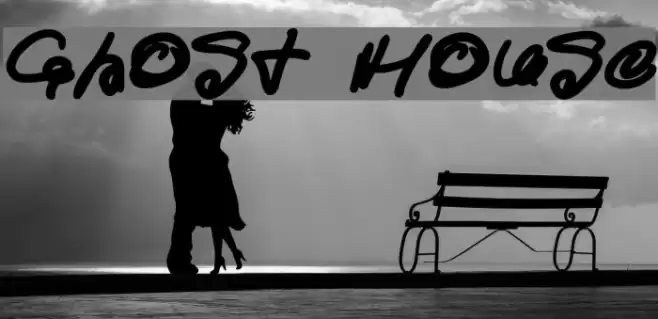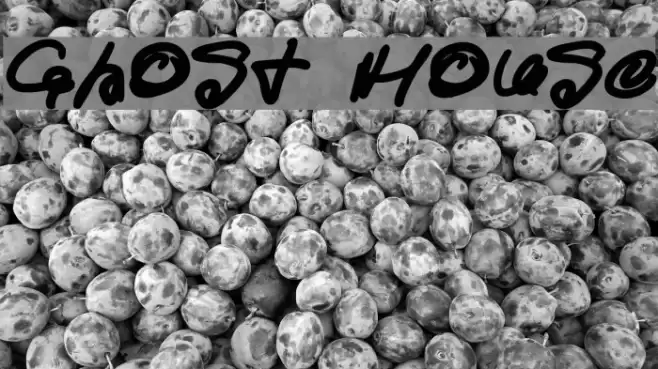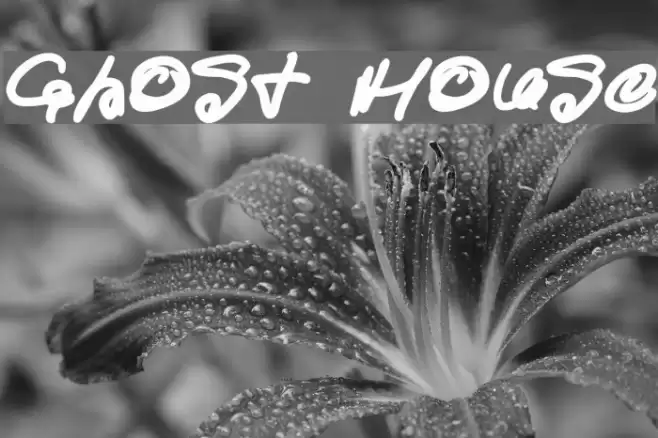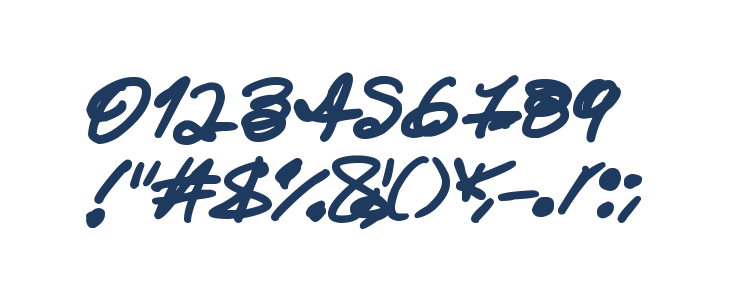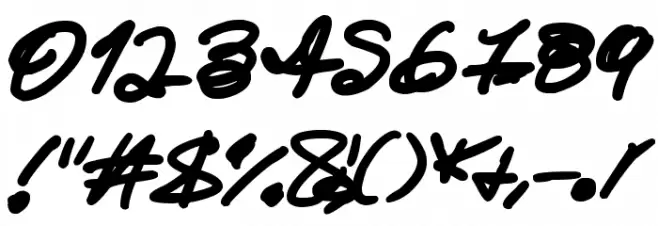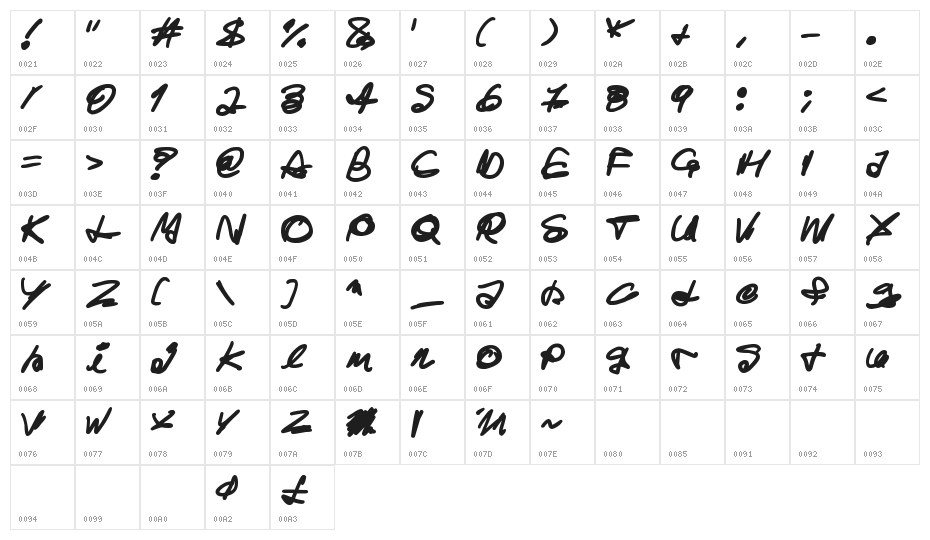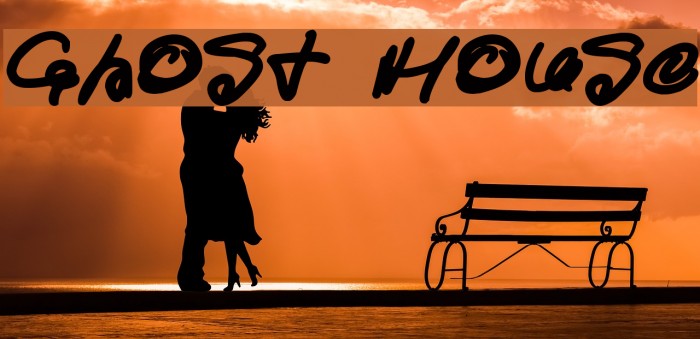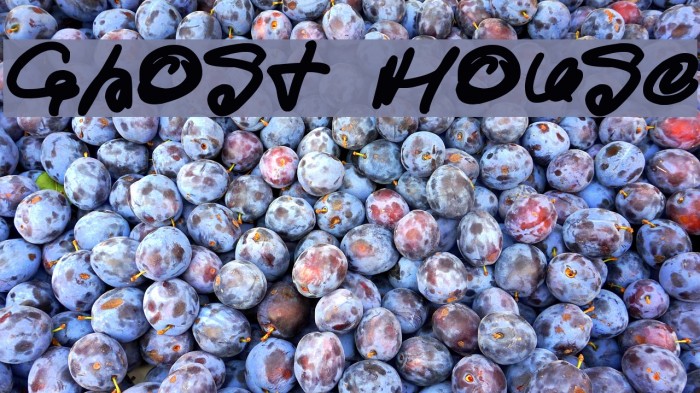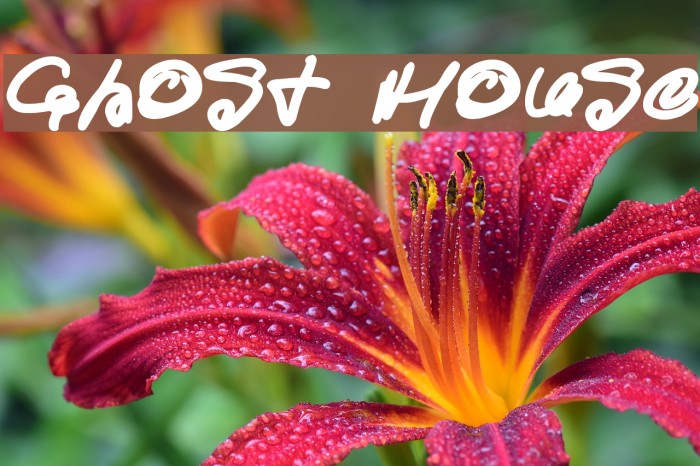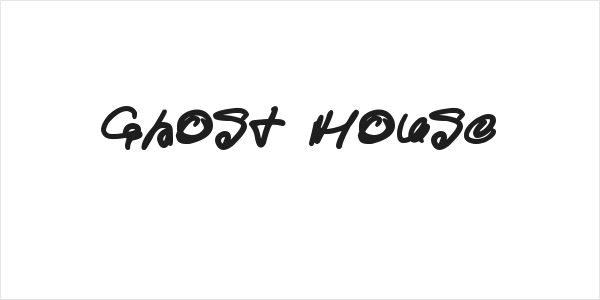
Ghost House Font
Ghost House Description
This font features a bold and expressive handwritten style, characterized by its thick strokes and dynamic flow. The letters are crafted with a sense of spontaneity, giving them a lively and energetic appearance. The uppercase and lowercase letters maintain a consistent style, with a playful and slightly chaotic arrangement that adds to its charm. The numbers and special characters follow the same aesthetic, ensuring a cohesive look across all elements. The overall design is reminiscent of graffiti or street art, making it ideal for projects that require a bold and unconventional touch.
A bold, expressive handwritten font with a graffiti-like style from Uncategorized fonts.
- Proposed Projects: Ideal for street art designs, edgy branding, posters, and creative projects that require a bold statement.
- Character Spacing: Tight